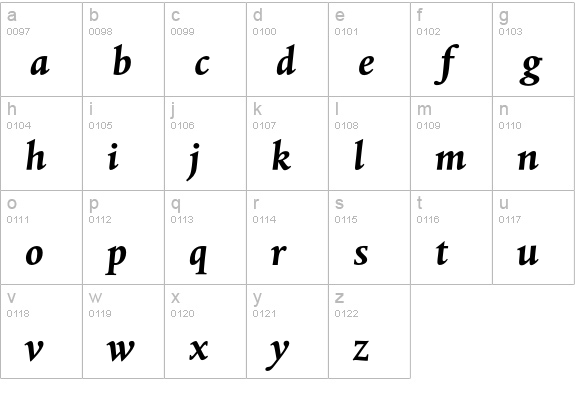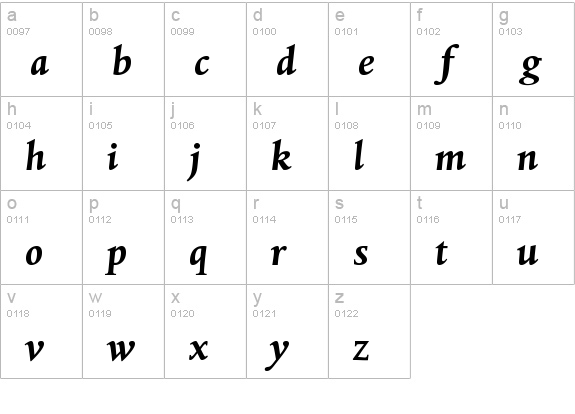
DTLAlbertinaST Bold Italic is a strong, high-contrast, italic variant in the DTLAlbertinaST typeface family \xE2\x80\x94 well suited to headlines, attention-grabbing titles, and strong calls-to-action.
DTLAlbertinaST Bold Italic is a stunning font that exudes elegance and sophistication. Its bold strokes and slanted italics create a sense of dynamism and style, making it perfect for adding a touch of flair to any design project. Whether you're creating a logo, poster, or website, this font will make a bold statement that commands attention. And the best part? DTLAlbertinaST Bold Italic is available for free download at FontsMarket.com. So you can easily access this beautiful font and use it in your projects without any cost. Don't miss out on the opportunity to elevate your designs with this striking typeface today!